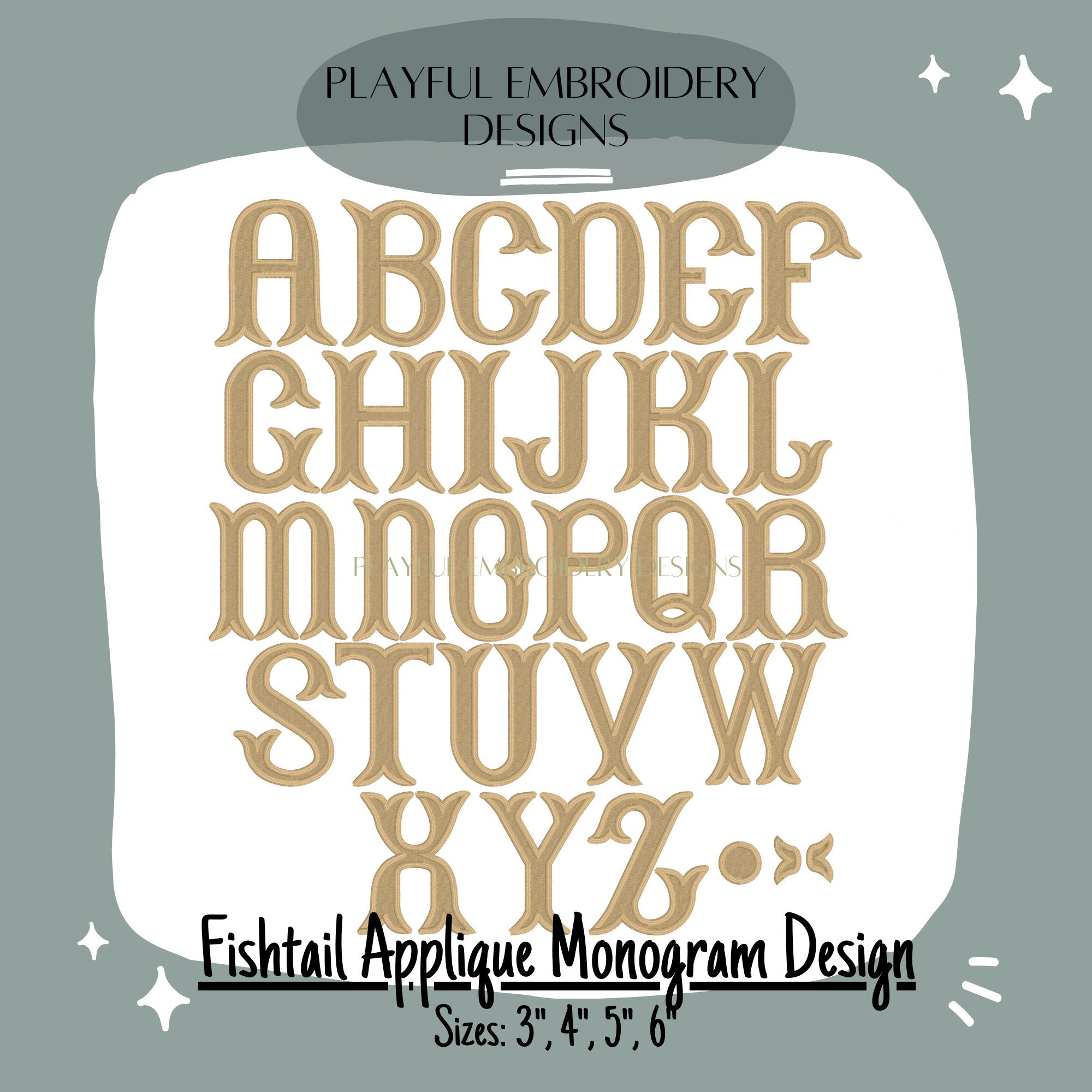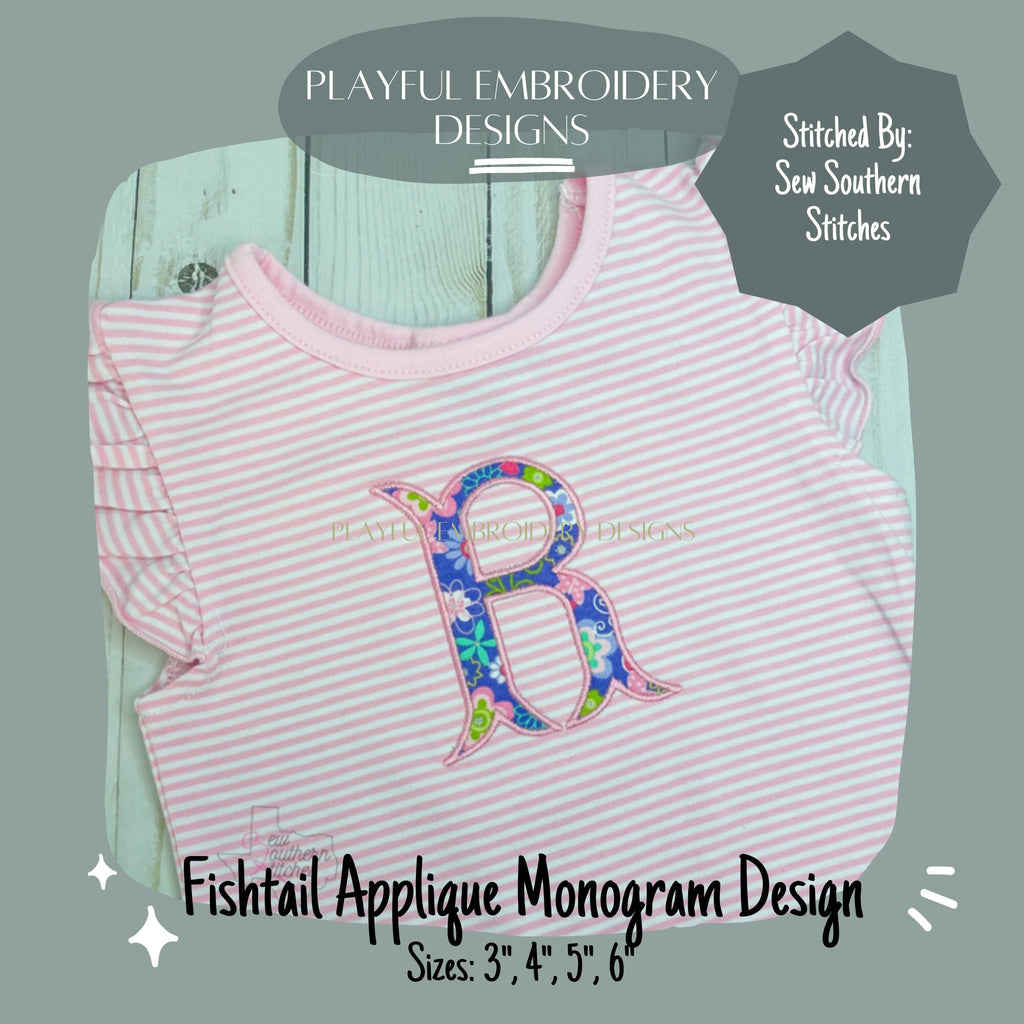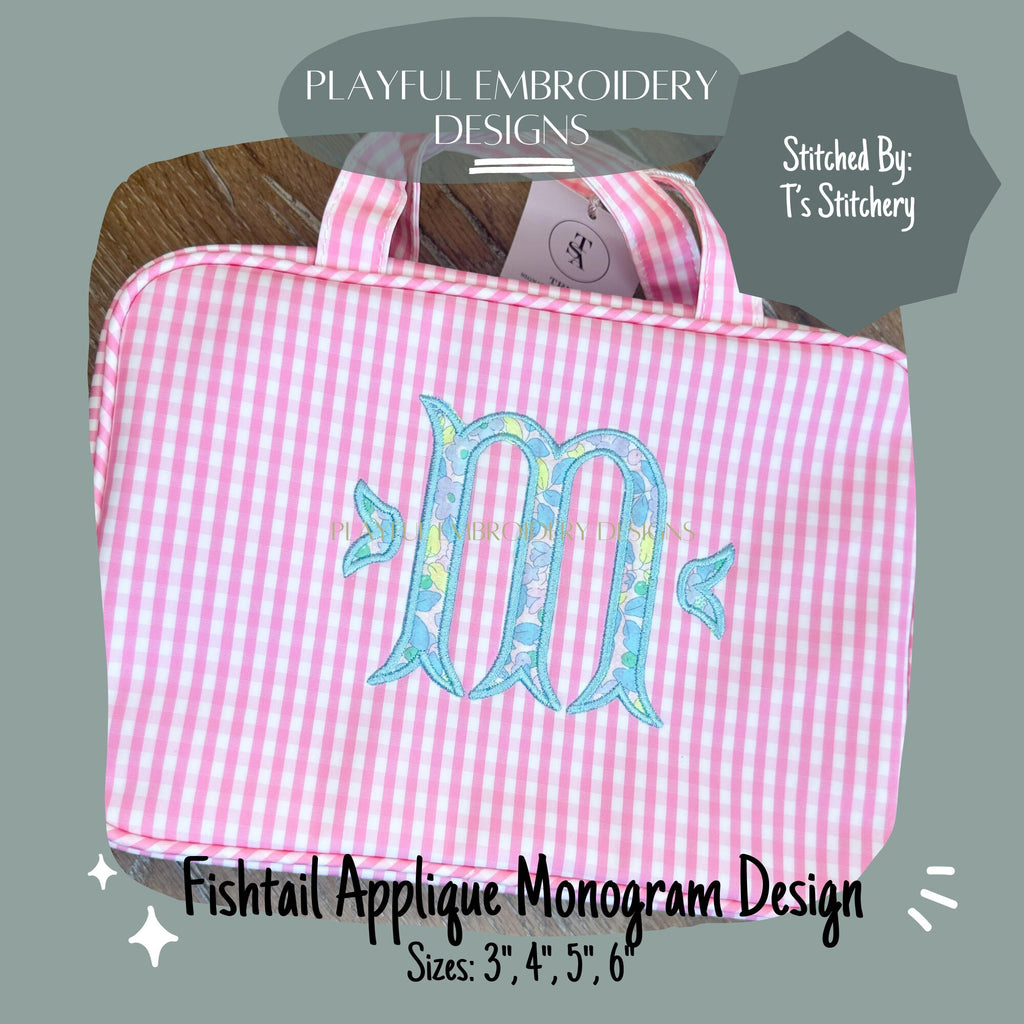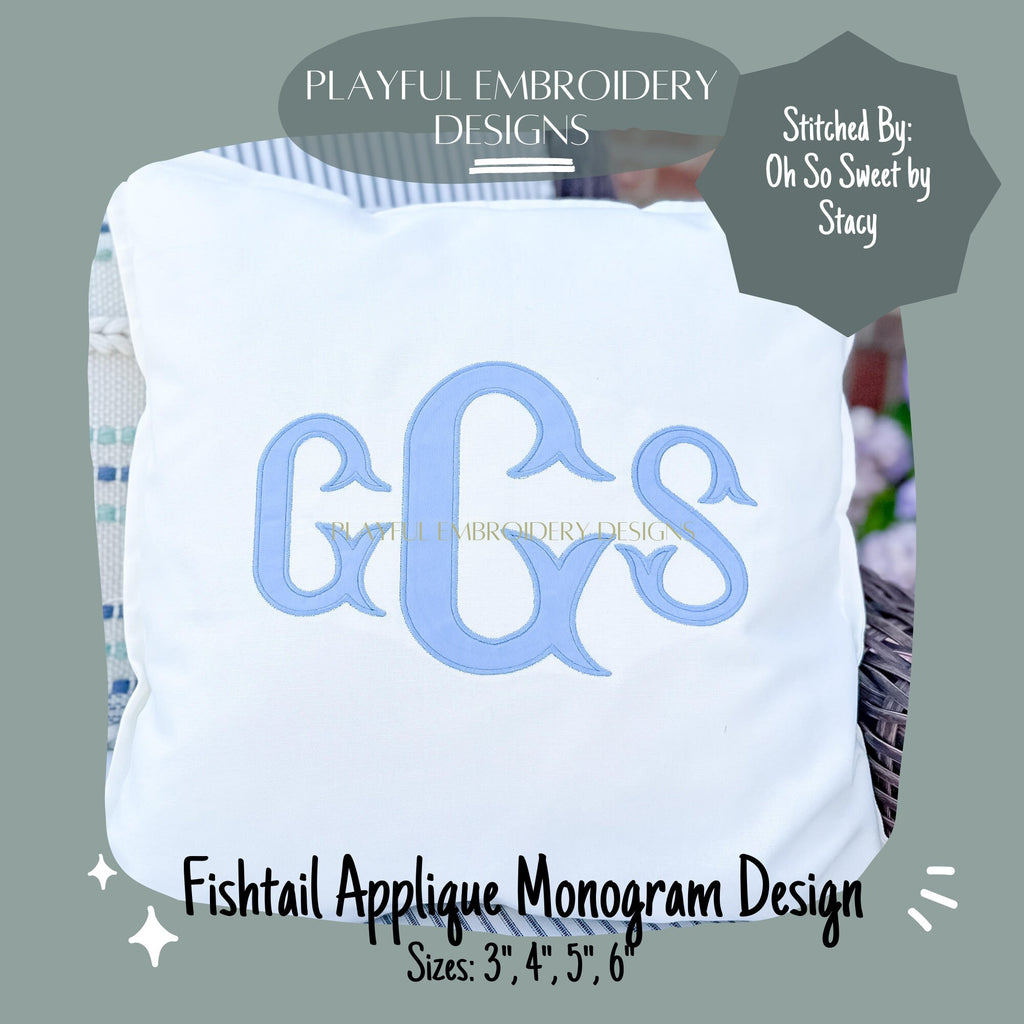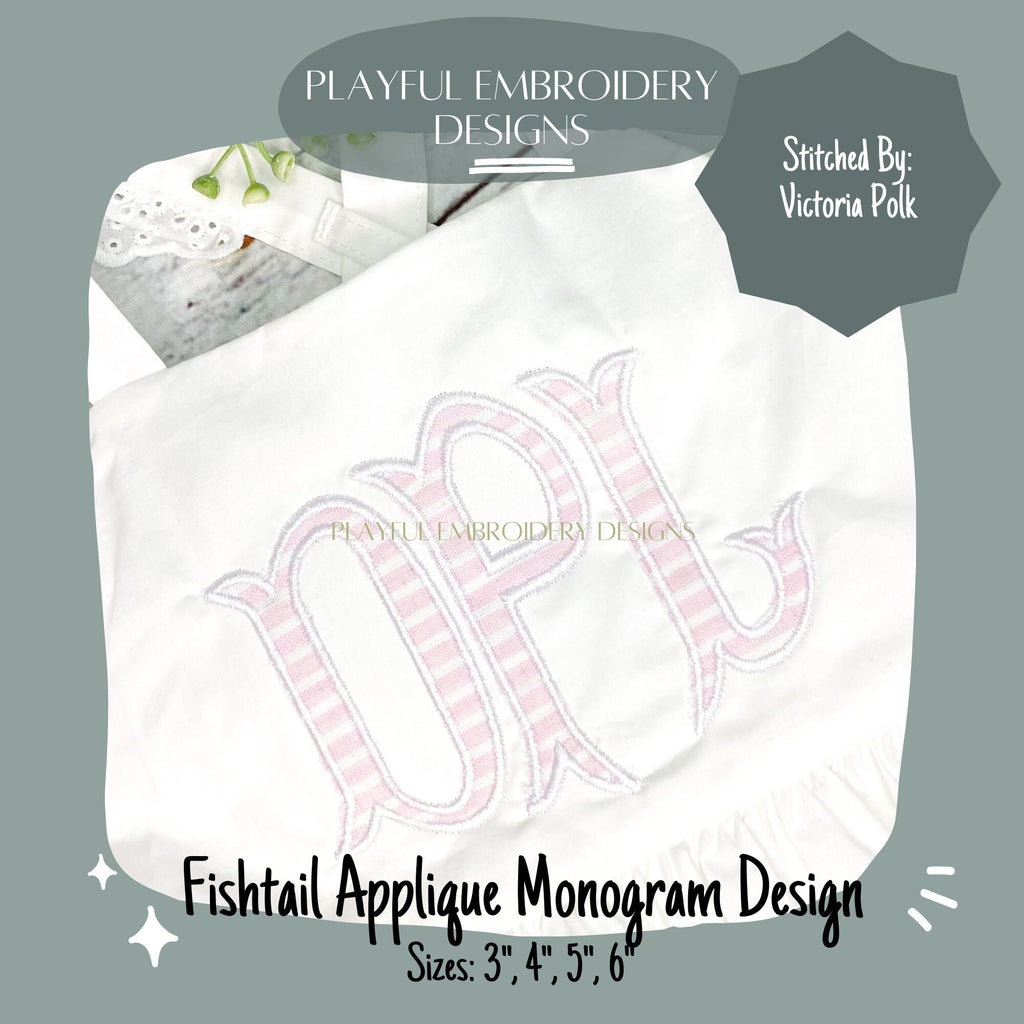
Fishtail Applique Monogram Design, Satin Stitch Fishtail Applique Machine Embroidery Font, 3", 4", 5", 6" font size, BX Monogram Font
Introducing the fishtail applique monogram font for machine embroidery. Comes in four sizes and includes three embellishments. This satin stitch fishtail applique looks great on clothing, towels, and travel items.